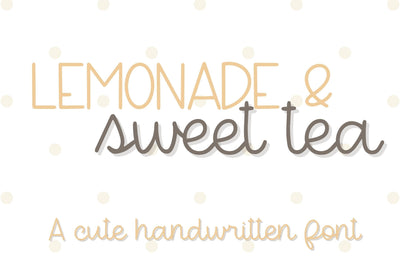
Lemonade & Sweet Tea, Cute Handwritten Font
This cute handwritten font is perfect for scrapbooks, greeting cards, t-shirt design, stickers, social media, crafts, and much more.